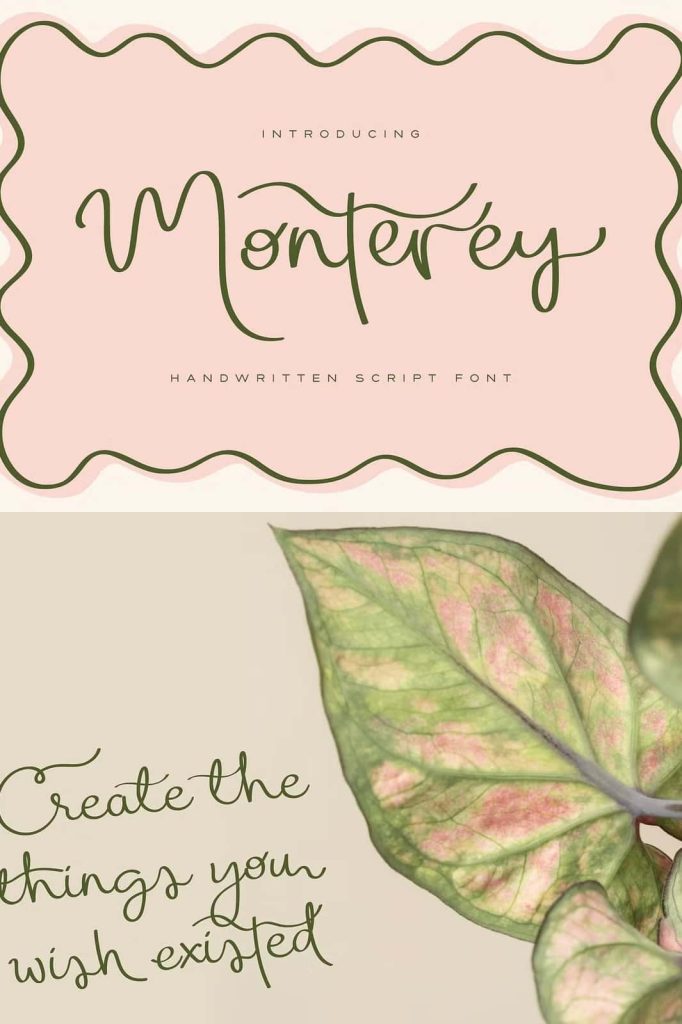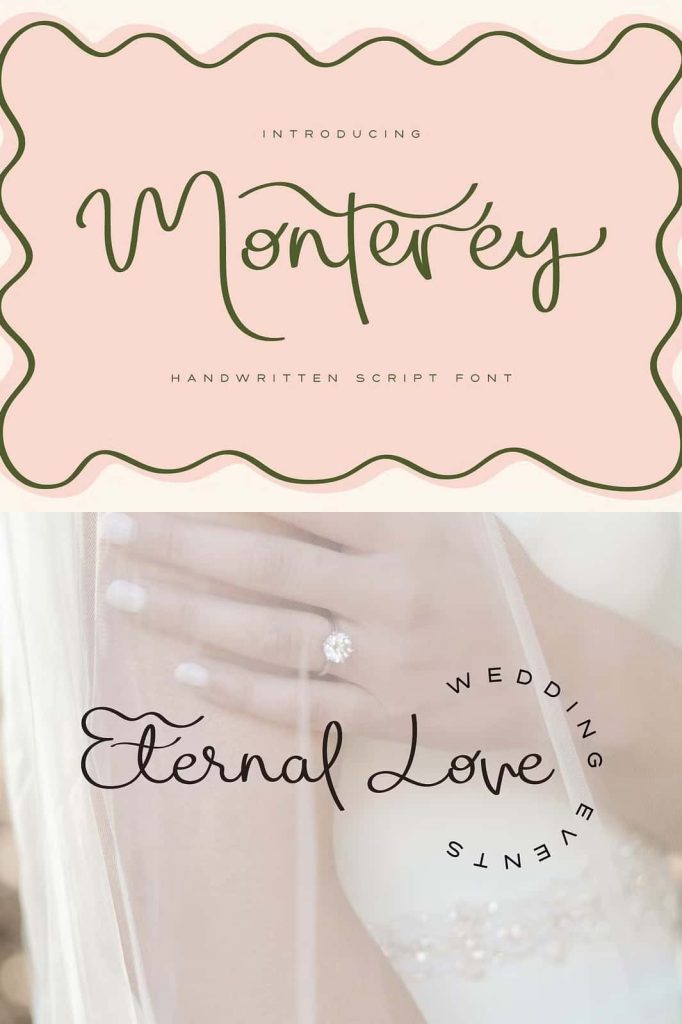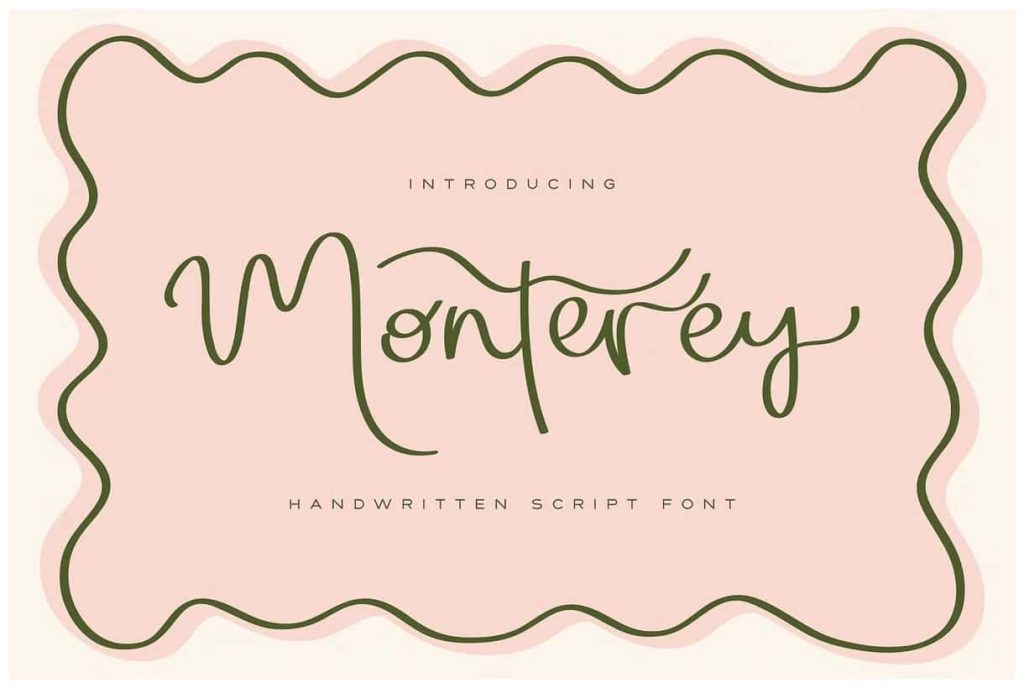
Monterey | Handwritten Script FontleastedMay 18, 2025Fonts Introducing Monterey, a fun handwritten script font infused with character and charm. Download